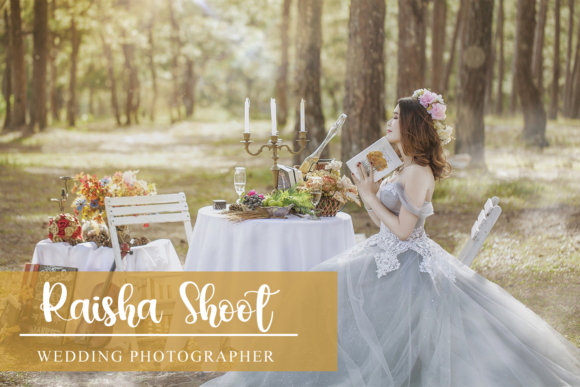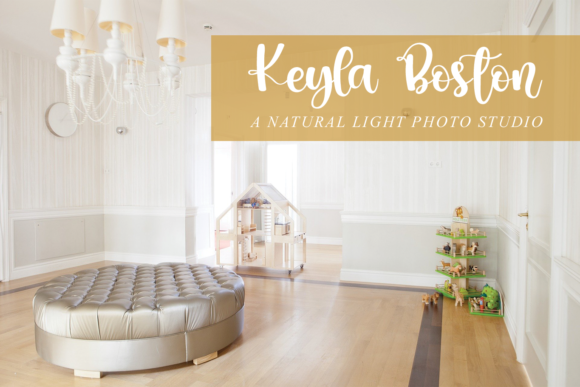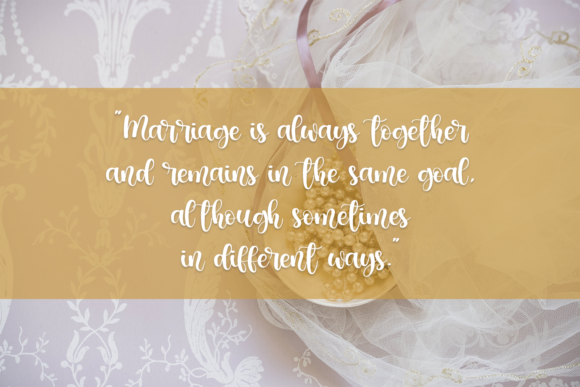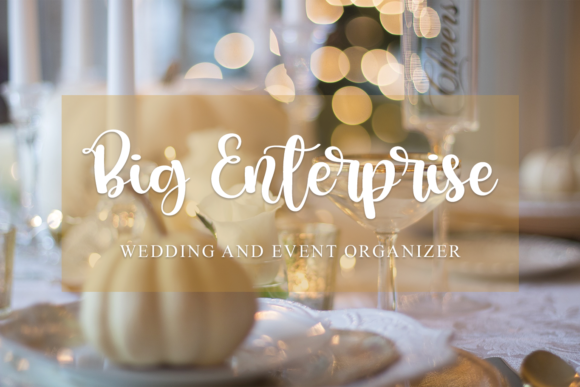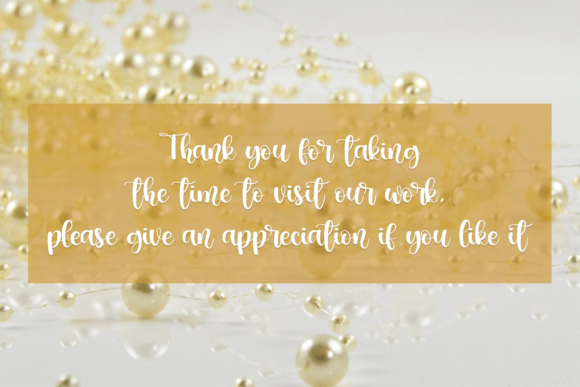
The Perfect Script for Your Next Masterpiece
Imagine you’re browsing through your favorite design blog, and you stumble upon a beautiful, handwritten wedding invitation that catches your eye. The elegant script, the delicate curves, and the perfect balance of style and sophistication – it’s a moment of pure design inspiration. As a designer, you know that fonts can make or break the look and feel of a project, and that’s where the Angel Wedding Font comes in.
This fashionable script font is a must-have in any designer’s library, offering a unique blend of elegance and sophistication that’s perfect for a wide range of projects, from wedding invitations to branding materials. With its neat and highly detailed design, the Angel Wedding Font is sure to elevate your creations and make them stand out from the crowd.
Angel Wedding Font Key Features
- Unique Characteristics: Elegant, cursive script with intricate details and ornate flourishes, ideal for wedding invitations, announcements, and other special occasions
Angel Wedding Font Review
Overall, I think the Angel Wedding Font is a beautiful and elegant choice for wedding invitations or other romantic designs. It’s got a classic, timeless feel that’s hard to resist. ✨ The font’s curves and flourishes add a touch of whimsy and romance, making it perfect for those who want to convey a sense of love and joy.
Here are some things that work well with this font:
- ✨ Elegant and sophisticated look that’s perfect for weddings and romantic designs.
- ✨ The font is highly customizable, with a wide range of sizes and styles to choose from.
- ✨ Great for use in watercolor or hand-painted designs, as it adds a touch of organic feel.
- ⚠️ The font can be a bit difficult to read at small sizes, so it’s best to use it at larger sizes or with bold weights.
- ⚠️ Some of the flourishes and decorations can be a bit distracting if overused, so use them sparingly.
- ⚠️ The font may not be suitable for modern or minimalist designs, as it’s quite ornate.
Overall, I think the Angel Wedding Font is a beautiful and elegant choice for those who want to convey a sense of love and romance. With a little creativity and restraint, it can be a truly stunning addition to any design.
Angel Wedding Font is ideal for creating elegant and whimsical designs, making it perfect for wedding invitations, baby shower invitations, and other special occasion designs. To get the most out of this font, use it in conjunction with floral patterns, lace textures, and pastel colors to create a romantic and dreamy look.